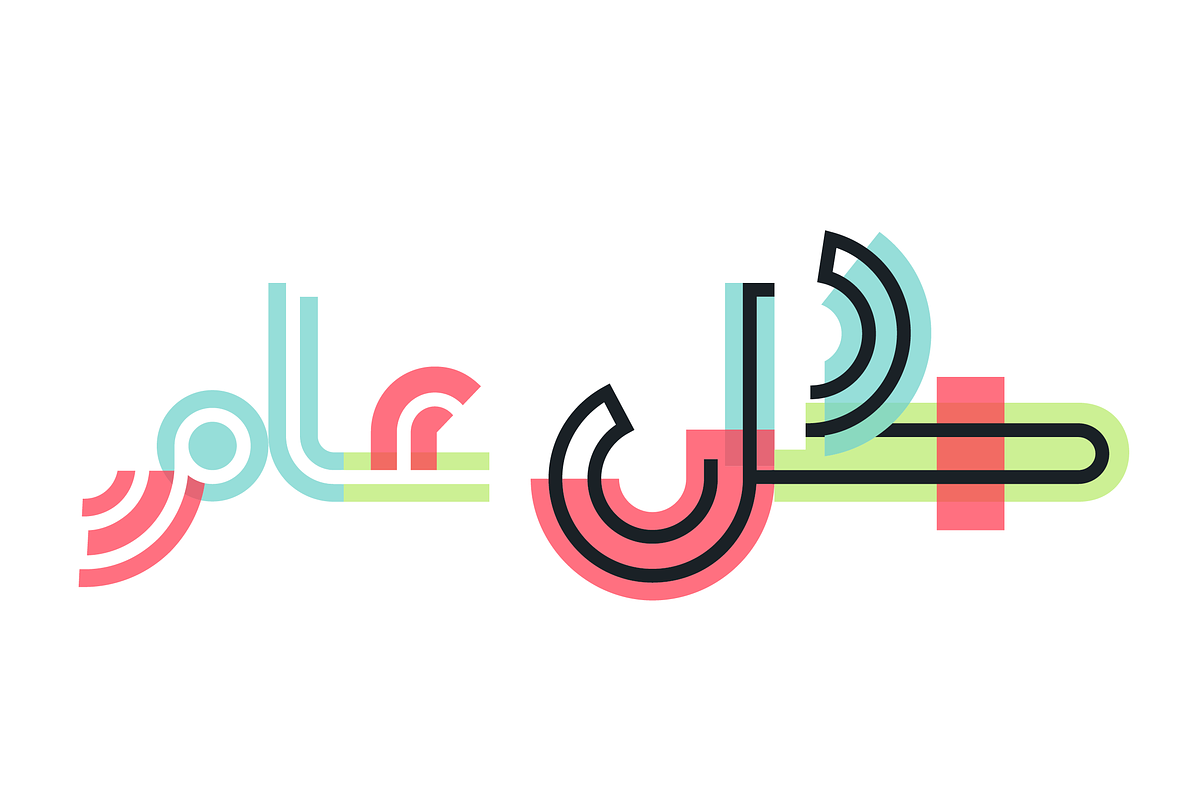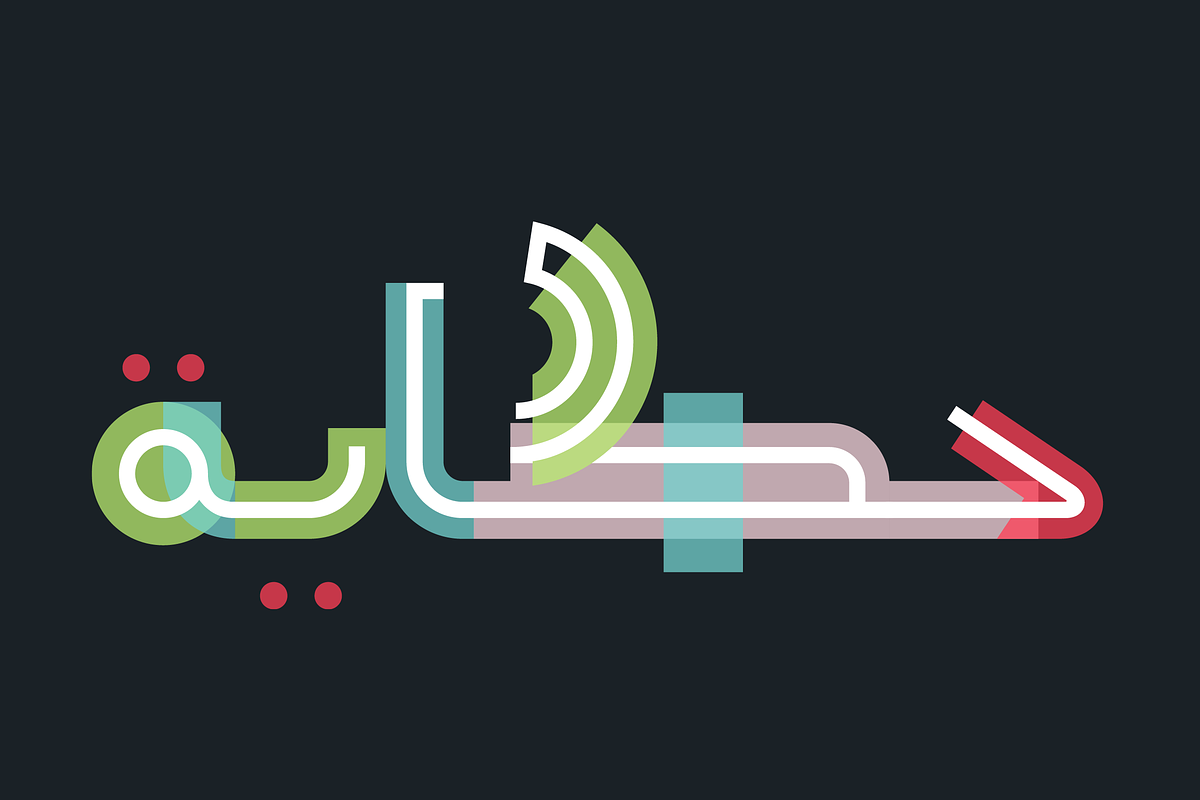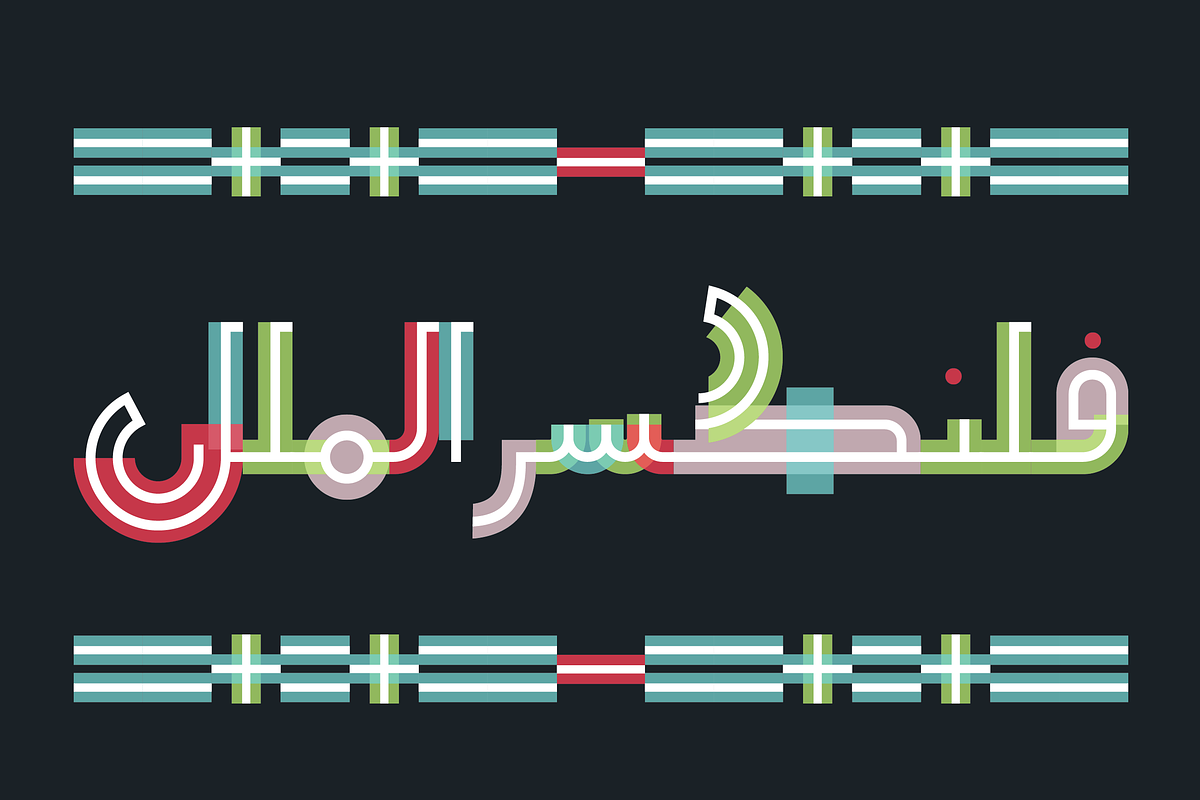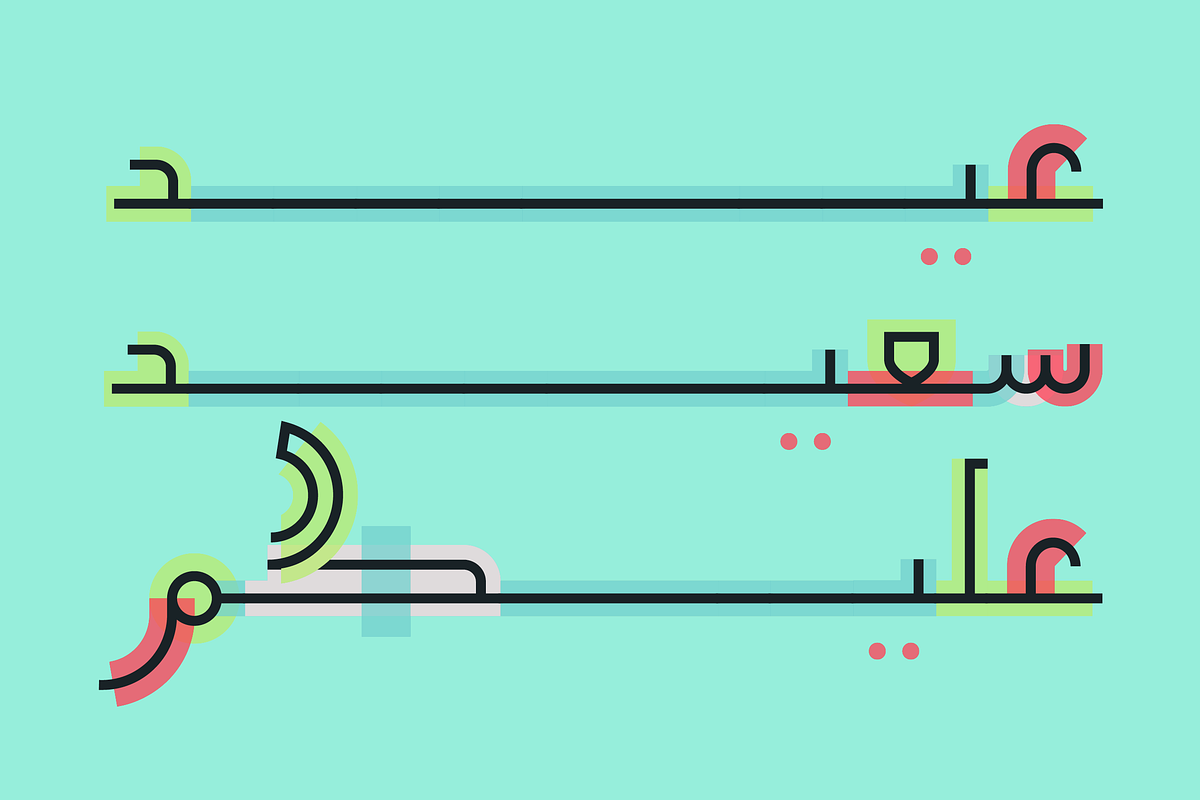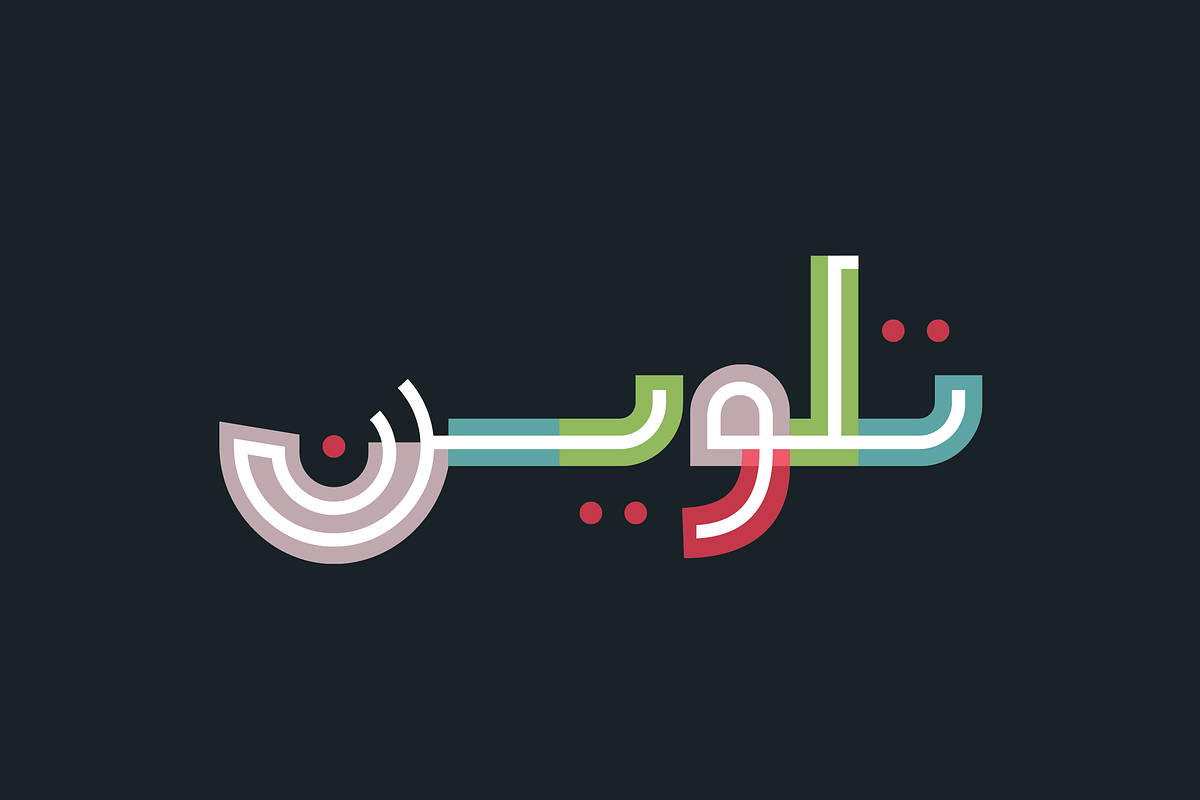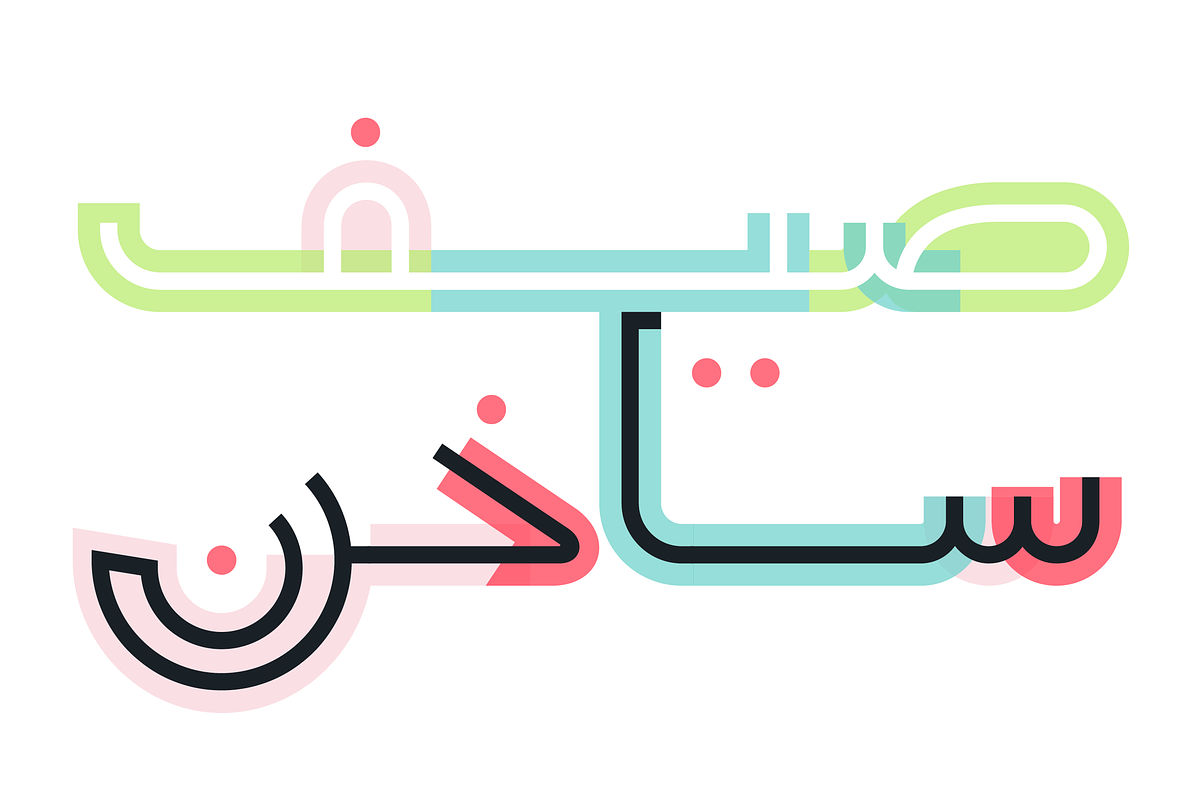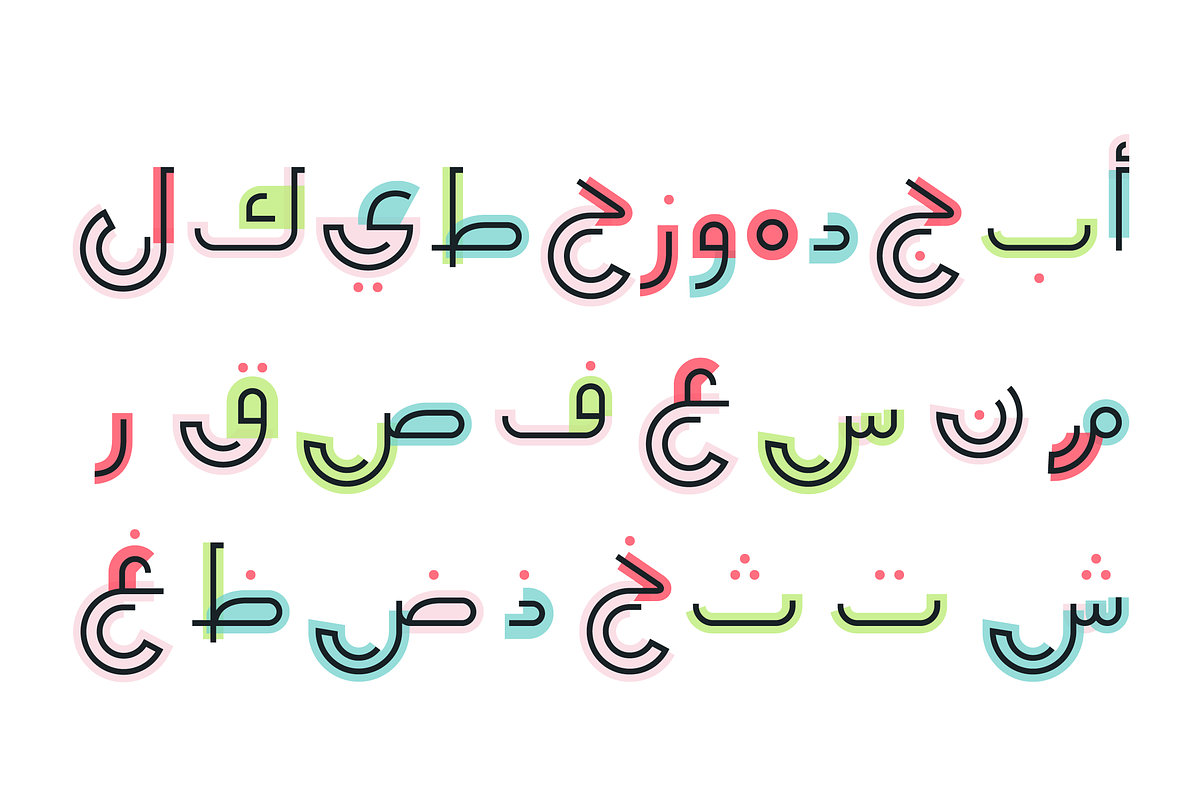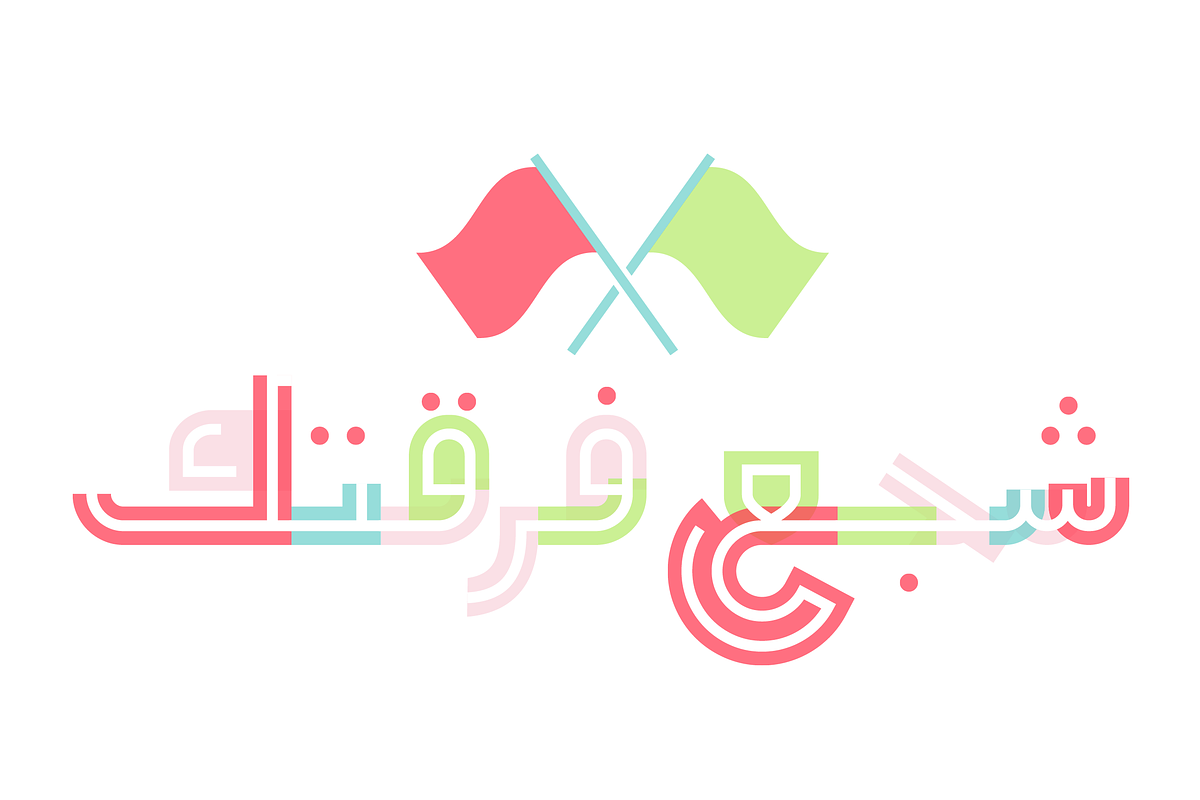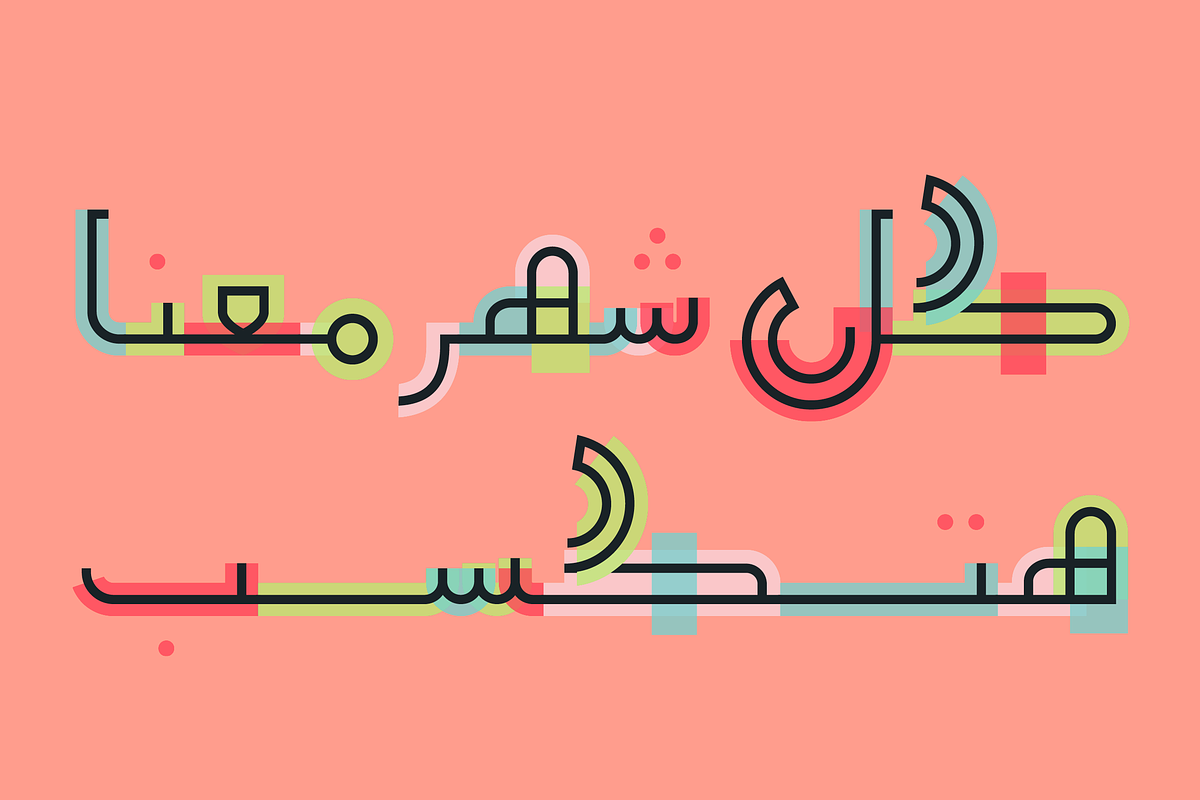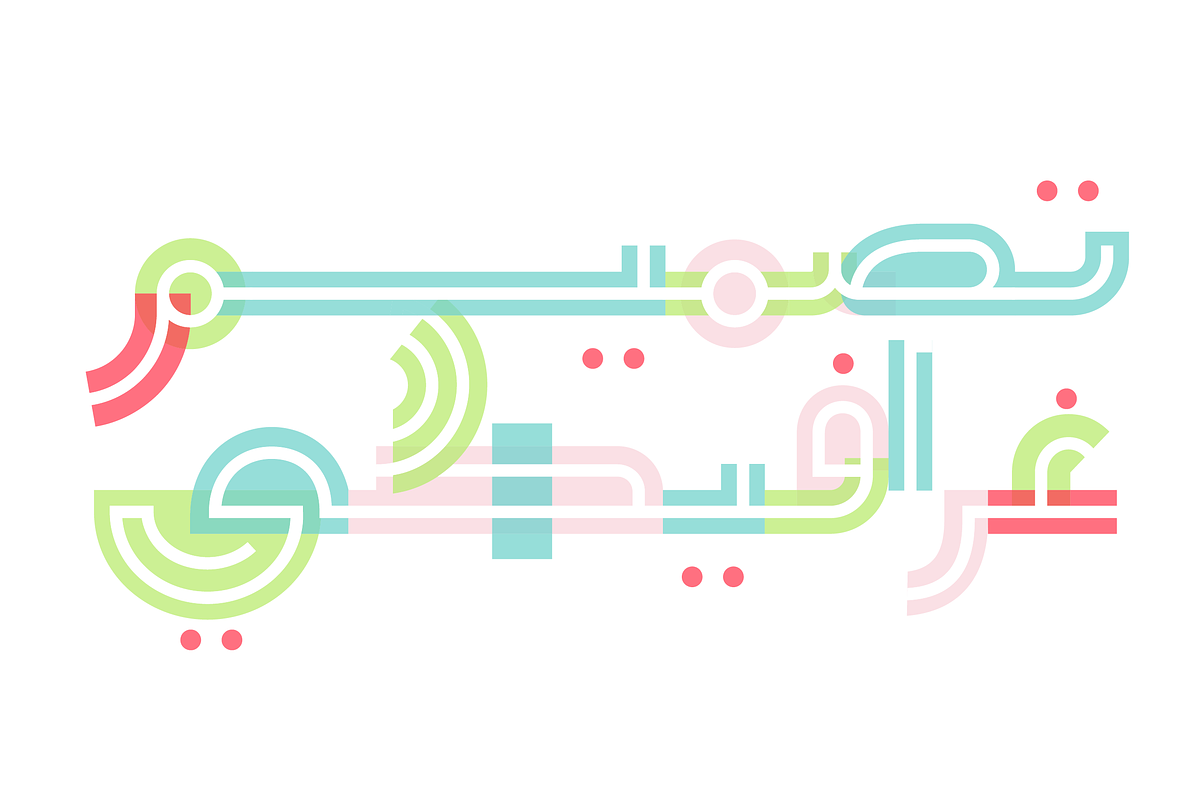
Talween - Arabic Colorfont
Talween (which is the Arabic word for Coloring) is an Arabic display font that features thin letterforms fleshed with colorful and translucent geometric shapes. It is an SVG-OpenType font that suits modern applications including web, mobile and advertising. Talween font family combines two styles (with white spine and with dark spine).